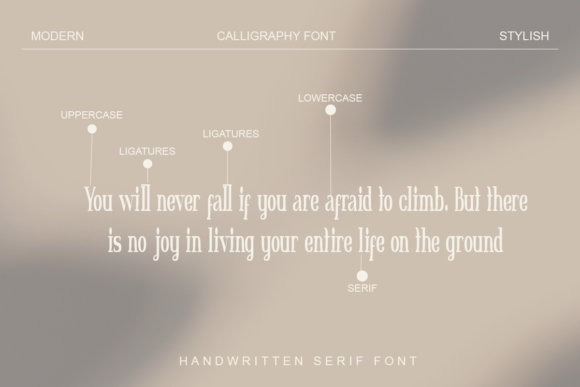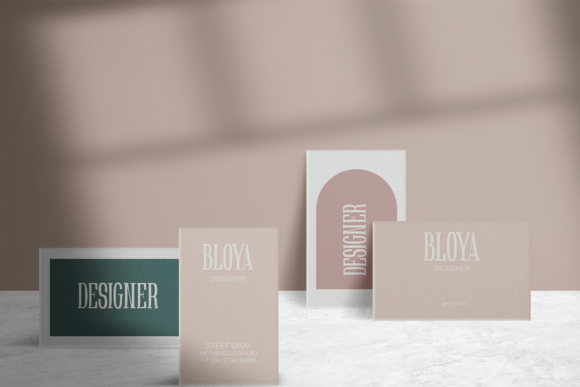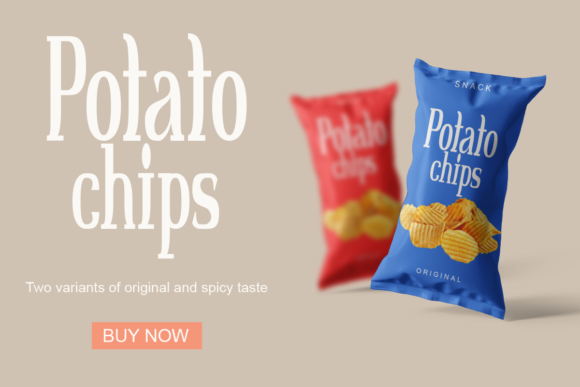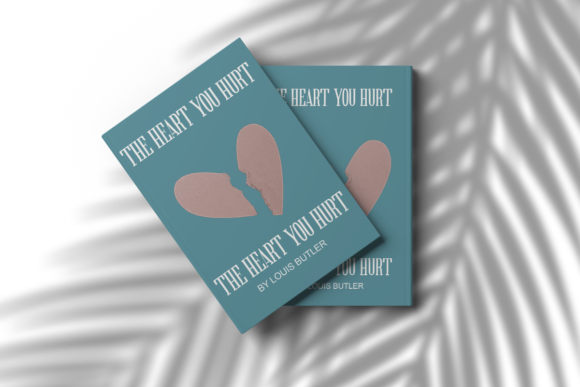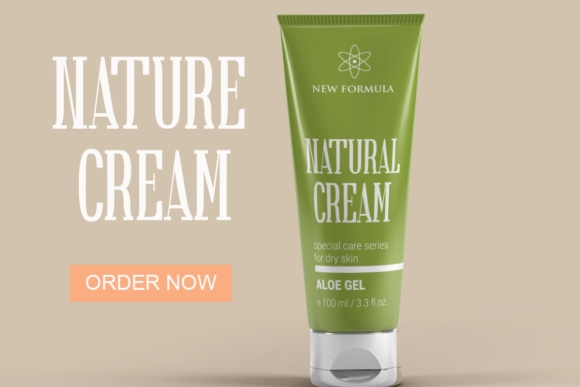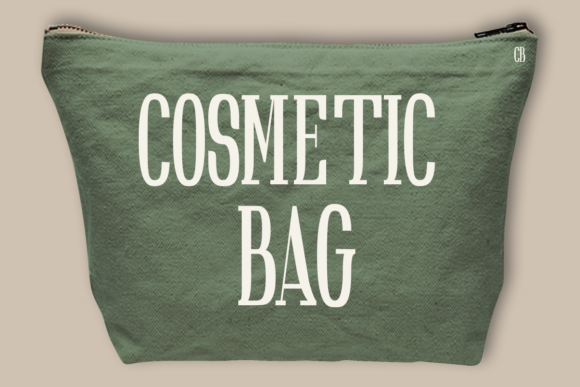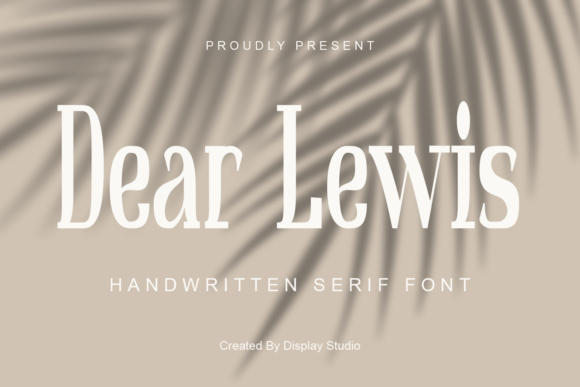
Introducing Dear Lewis Font: Elevate Your Designs with a Vintage and Tall Serif Font
Are you a designer or crafter looking for a font that can add a touch of elegance and sophistication to your creations? Look no further than Dear Lewis Font. This vintage and tall serif font is a wonderful asset to any font library, and its versatility makes it suitable for a wide range of design projects. In this article, we’ll explore the features and benefits of Dear Lewis Font, and how it can enhance your designs.
What is Dear Lewis Font?
Dear Lewis Font is a serif font that exudes a sense of classic charm and sophistication. Its tall and slender lines make it perfect for designs that require a touch of elegance, such as luxury branding, high-end fashion, and upscale packaging. The font’s vintage feel also makes it suitable for projects that require a nostalgic or retro aesthetic, such as vintage-inspired posters, labels, and signage.
Key Features of Dear Lewis Font
So, what makes Dear Lewis Font so special? Here are some of its key features:
- Vintage aesthetic: Dear Lewis Font has a unique vintage feel that sets it apart from other serif fonts. Its classic lines and elegant curves make it perfect for designs that require a touch of nostalgia or sophistication.
- Tall and slender lines: The font’s tall and slender lines make it perfect for designs that require a sense of elegance and luxury. Whether you’re creating a logo, headline, or body text, Dear Lewis Font is sure to make a statement.
- Highly legible: Despite its elegant lines, Dear Lewis Font is highly legible, even at small sizes. This makes it perfect for designs that require a lot of text, such as books, magazines, and websites.
- Versatile: Dear Lewis Font is a versatile font that can be used for a wide range of design projects, from luxury branding to packaging, posters, and more.
How to Use Dear Lewis Font
Dear Lewis Font is easy to use and can be incorporated into a wide range of design projects. Here are some ideas to get you started:
- Luxury branding: Use Dear Lewis Font to create elegant and sophisticated logos, business cards, and letterheads that exude luxury and sophistication.
- Packaging design: Add a touch of elegance to your packaging designs with Dear Lewis Font. It’s perfect for high-end products, such as cosmetics, jewelry, and luxury foods.
- Poster design: Create eye-catching posters with Dear Lewis Font. Its vintage aesthetic and elegant lines make it perfect for posters that require a touch of nostalgia or sophistication.
- Web design: Use Dear Lewis Font to create elegant and sophisticated websites that exude luxury and sophistication. It’s perfect for high-end websites, such as luxury brands, hotels, and restaurants.
Benefits of Using Dear Lewis Font
So, why should you use Dear Lewis Font in your designs? Here are some benefits:
- Stand out from the crowd: Dear Lewis Font is a unique and elegant font that will help your designs stand out from the crowd. Its vintage aesthetic and tall lines make it perfect for designs that require a touch of sophistication.
- Enhance your brand: Use Dear Lewis Font to enhance your brand’s image and reputation. Its elegant lines and sophisticated feel make it perfect for luxury brands that require a high-end aesthetic.
- Increase legibility: Dear Lewis Font is highly legible, even at small sizes. This makes it perfect for designs that require a lot of text, such as books, magazines, and websites.
| Font Name | Dear Lewis Font |
In conclusion, Dear Lewis Font is a wonderful asset to any font library. Its vintage aesthetic, tall lines, and high legibility make it perfect for a wide range of design projects, from luxury branding to packaging, posters, and more. Whether you’re a designer or crafter, Dear Lewis Font is sure to elevate your designs and add a touch of elegance and sophistication. So why not give it a try and see the difference it can make?